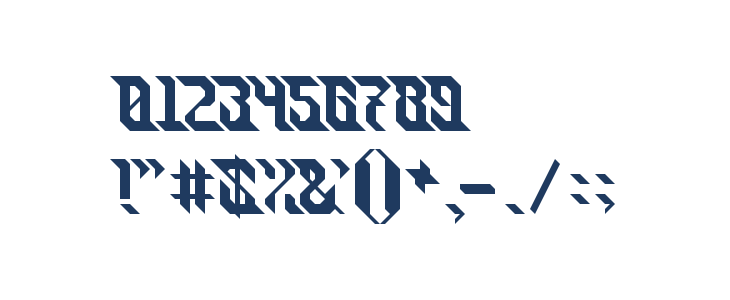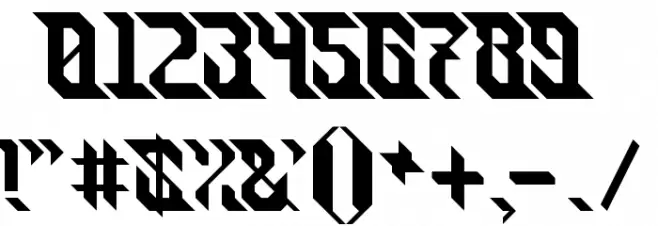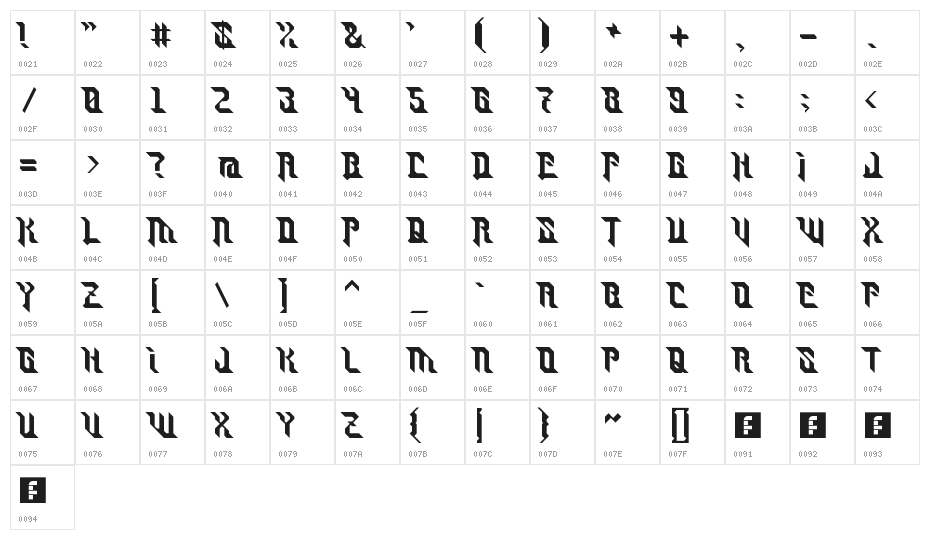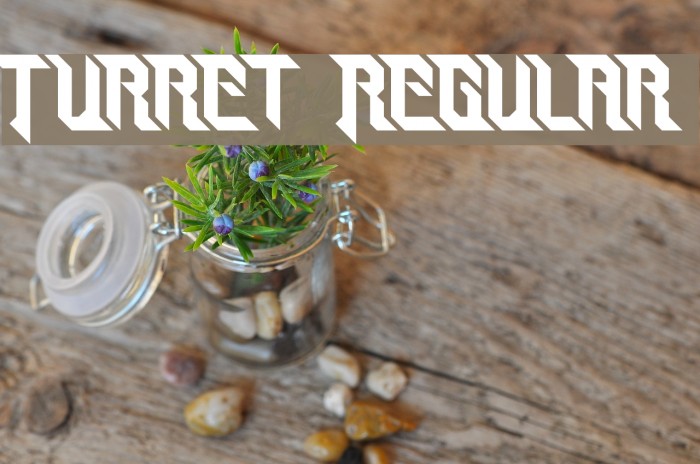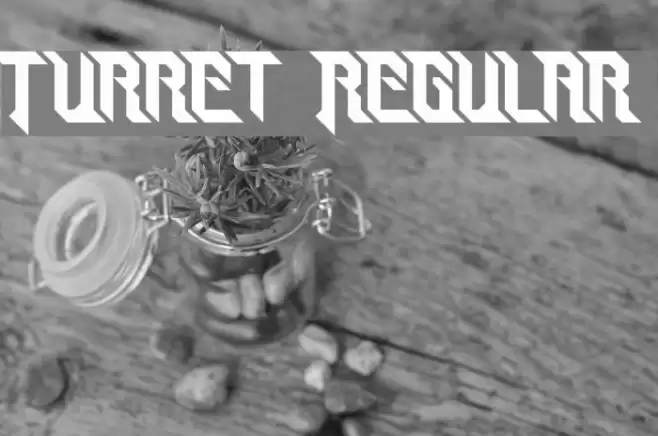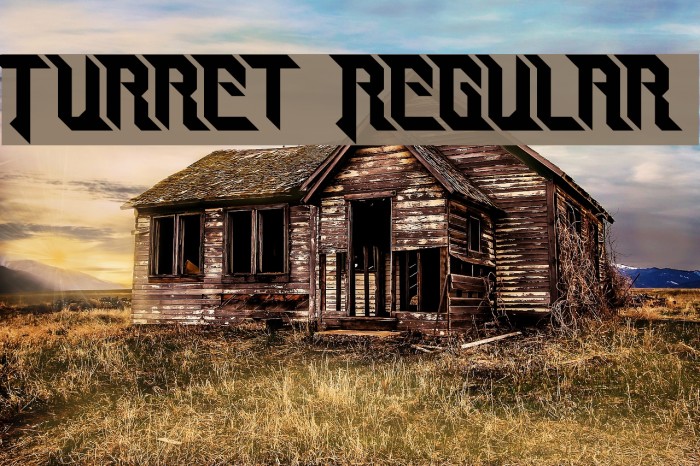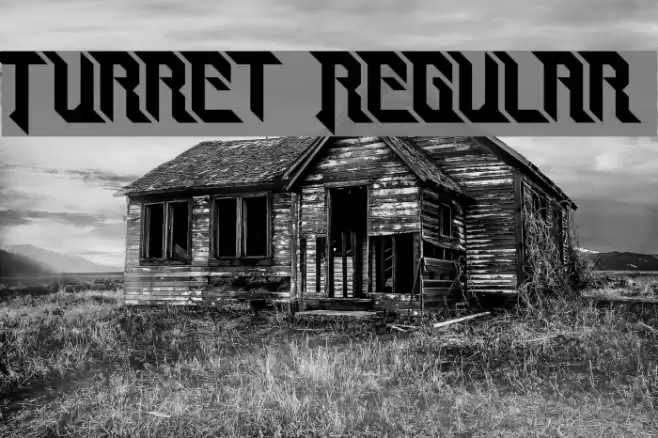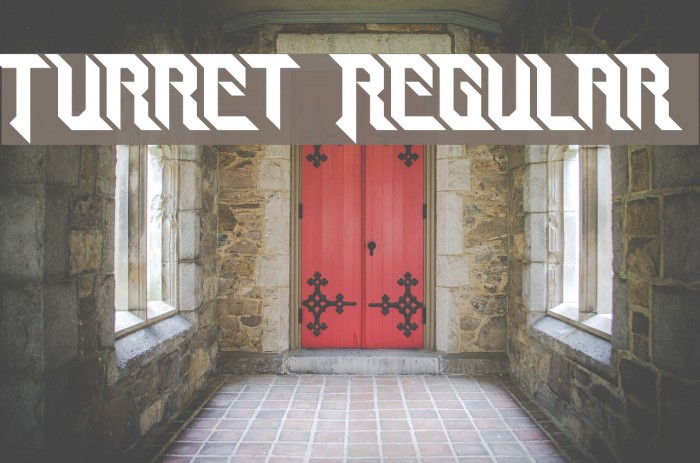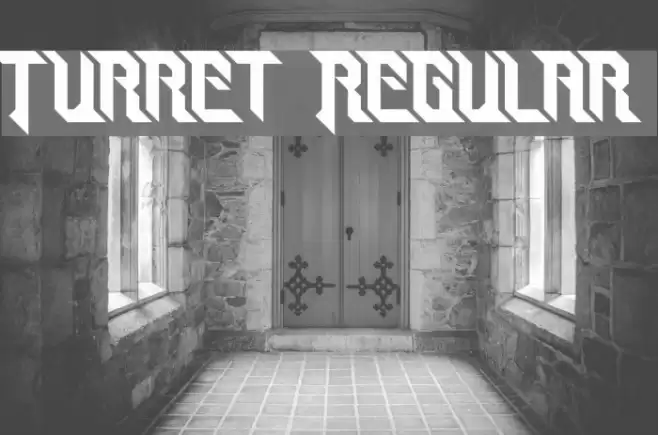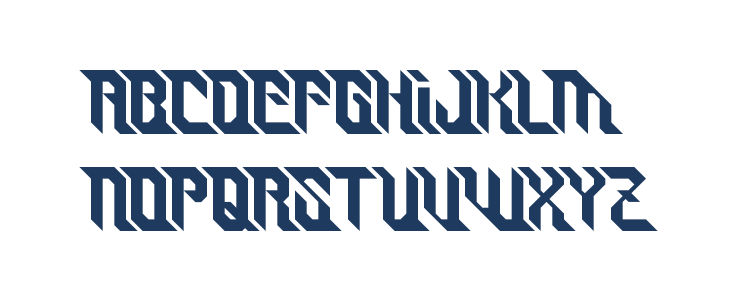
Turret Regular Font
Turret Regular Description
This font features a bold, angular design with a futuristic and geometric aesthetic. The characters are sharply defined with a distinct block-like structure, creating a sense of strength and modernity. The uppercase and lowercase letters maintain a consistent style, with each character exhibiting a unique angular cut that adds to the overall dynamic appearance. The numbers and special characters follow the same design principles, ensuring uniformity across the typeface. This font's striking appearance makes it ideal for projects that require a bold and impactful visual statement.